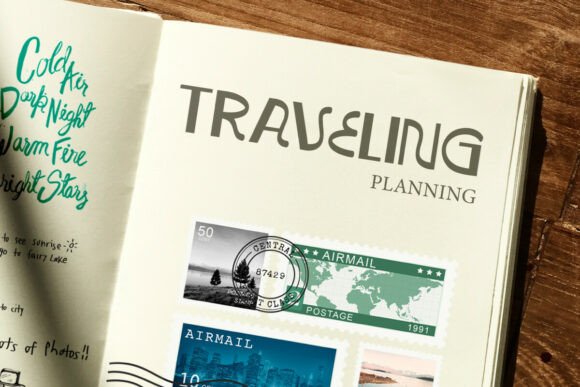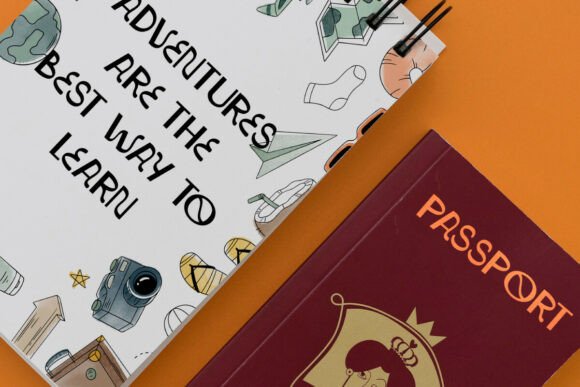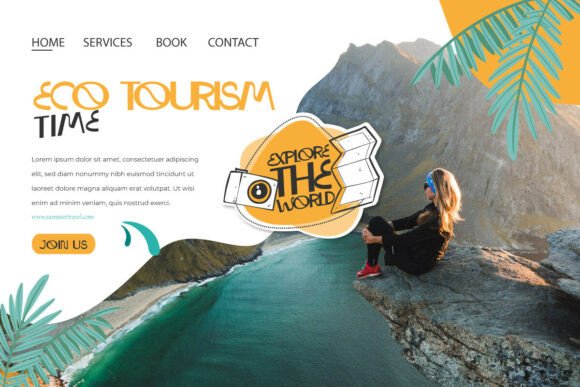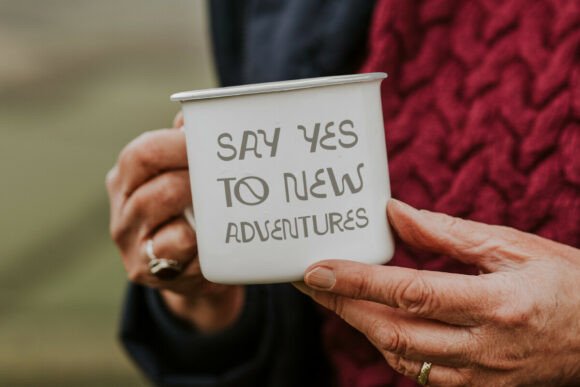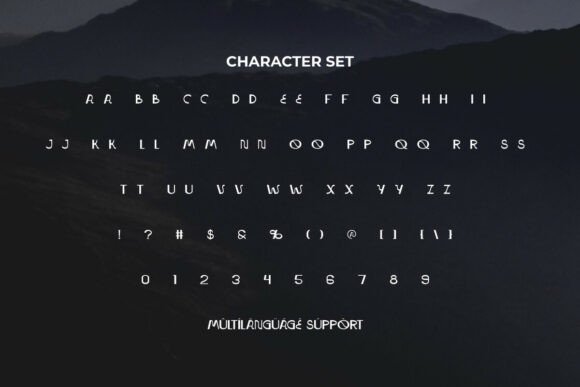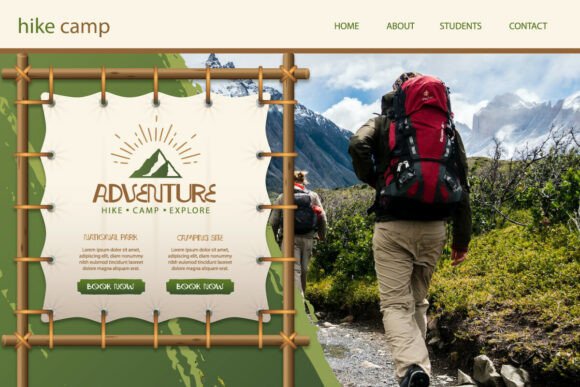
Introduction to Mountain Heat Font
Mountain Heat is a sleek, futuristic display font with dynamic curves and sharp angles that evoke the energy of nature and innovation.
With its unique character shapes and sci-fi-inspired flair, this typeface is ideal for tech branding, adventurous titles, modern posters, and digital projects that need a bold, contemporary edge It blends minimalism with expressive geometry for high-impact visual appeal.
Key Features of Mountain Heat Font
Why Choose Mountain Heat Font?